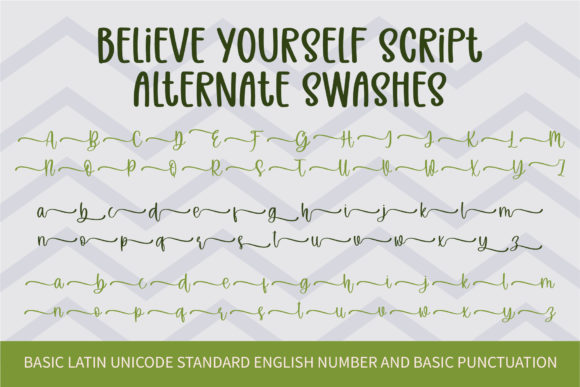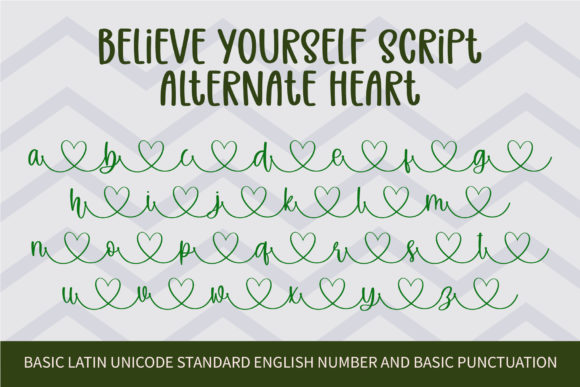
Believe Yourself Font
db-ku.com - Script & Handwritten -- Believe Yourself is a duo styled handwritten font which feels equally charming and delicate. This font is PUA encoded which means you can access all of the glyphs and swashes with ease! Believe Yourself will turn any creative idea into a standout!